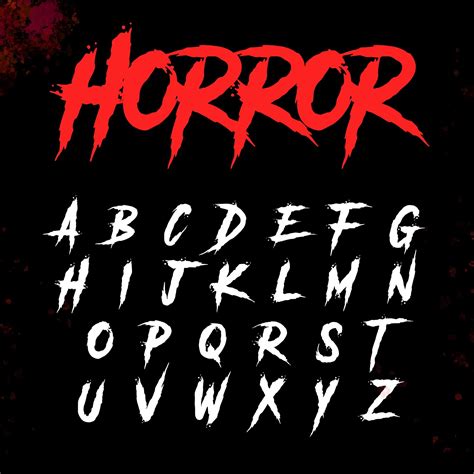
Ghoulishly Good: Top Free Horror Lettering Fonts to Give Your Designs a Creepy Twist!
Halloween is just around the corner! Are you looking to add a touch of spookiness to your designs? Well, we've got good news for you! We've curated a list of top free horror lettering fonts that will give your designs a creepy twist!
With over 31 million Halloween posts on Instagram alone last year, it's evident that people love this holiday more than ever. While it might seem like the decorations or costumes are what drives Halloween, the typography used in designs is equally important. A great font can make or break a design.
When it comes to designing for Halloween, there are several variables to consider. The font is one of the most critical elements to set the tone of the design. You need a lettering style that looks spooky and eerie yet remains legible, making sure the message comes through clearly.
Whether it's for posters, invitations, or social media graphics, our list contains a diverse range of lettering fonts perfect for your Halloween projects.
A Scary Introduction
Horror is a genre that has always fascinated artists and designers all over the world. If you are looking for ways to add a spine-chilling twist to your designs, then horror lettering fonts can be just what you need. However, with so many options out there, it can be challenging to choose the right ones for your project. This article will help you make an informed decision by comparing some of the top free horror lettering fonts available online today. Read on to find out more!
The Table Comparison
| Font Name | Characteristics | Best Used For | Download Link |
| Blood Feast | Sharp edges, dripping blood effect | Halloween-themed designs, horror movie posters | https://www.fontspace.com/blood-feast-font-f8608 |
| Nosferatu | Gothic, eerie, mysterious | Vintage horror posters, book covers, invitations | https://www.fontspace.com/nosferatu-fonts-font-f1164 |
| Nightmare | Thick strokes, uneven lines, distressed look | Grungy horror designs, dark illustrations, logos | https://www.dafont.com/nightmare-5.font |
| Creepster | Sharp angles, bold lines, cartoony vibe | Comic-style horror designs, posters, invitations | https://www.fontspace.com/creepster-font-f13140 |
| Hacked | Distorted, glitchy, cyber horror look | Sci-fi horror designs, digital art, logos | https://www.dafont.com/hacked.font |
The Characteristics of Horror Lettering Fonts
There are various characteristics that make horror lettering fonts stand out. Here are some of them:
Sharp Edges and Dripping Blood
Blood Feast is a font that comes with sharp edges and a dripping blood effect that can give your designs a gory twist. It's perfect for Halloween-themed designs, horror movie posters, and anything that needs a touch of violence.
Gothic Elegance and Mystery
Nosferatu is a font that exudes gothic elegance and mystery. Its vintage look makes it perfect for horror book covers, posters, and invitations that need a classic touch.
Uneven Lines and Distressed Look
Nightmare is a font that has uneven lines and a distressed look that can add a grungy feel to your designs. It's perfect for dark illustrations, logos, and any design that needs a rough edge.
Cartoony Vibes and Bold Lines
Creepster is a font that has cartoony vibes and bold lines. It's perfect for comic-style horror designs, posters, invitations, or anything that needs a playful yet spooky twist.
Distorted and Cyber Horror Look
Hacked is a font that has a distorted and glitchy look that can give your designs a cyber horror feel. It's perfect for sci-fi horror designs, digital art, and logos that need a futuristic edge.
Opinion about Ghoulishly Good
Overall, Ghoulishly Good: Top Free Horror Lettering Fonts to Give Your Designs a Creepy Twist! is a great resource for designers who want to add a spooky twist to their projects. The fonts included in this article are diverse and offer a range of different styles that can cater to various niches within the horror genre. Whether you want a gothic, grungy, cartoony, or cyber horror look, there's a font here for you. Additionally, since all the fonts in this article are free, it saves you the trouble of having to pay for expensive licenses. So go ahead and give these fonts a try, and let your imagination run wild!
The Conclusion
In conclusion, adding horror lettering fonts to your designs is an excellent way to create an eerie and creepy atmosphere. With so many options available online, it may seem overwhelming to choose the right font for your project. However, this article has provided some helpful insights into some of the top free horror lettering fonts that are currently available. By comparing their characteristics and best uses, it should be easier for you to select the right font that will give your designs a ghastly twist. Happy designing!
Some popular horror lettering fonts include Chiller, Creepster, Blood Crow, and Nightmare. These fonts have unique styles and are perfect for creating spooky designs.